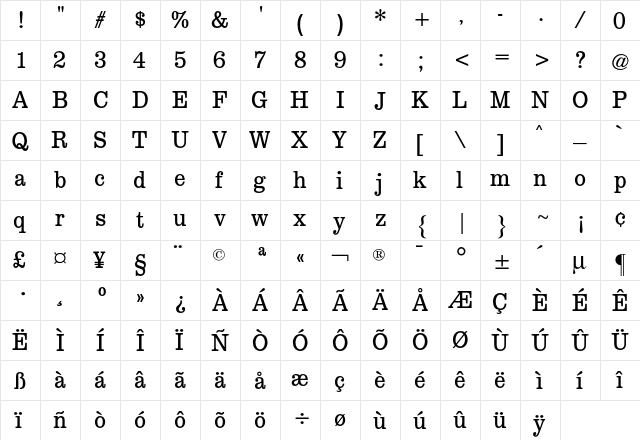
Clarendon CG Book Condensed Regular Font Preview
Design Context for Clarendon CG Book Condensed Typeface
Clarendon CG Book Condensed features prominent, blocky serifs that give it a confident, grounded presence — equally at home in editorial settings and bold branding work. The condensed width makes it efficient for tight spaces without sacrificing legibility.
Suited to magazines, political campaign materials, bold packaging, and any setting where authority matters.
Pro Tip: Use Clarendon CG Book Condensed for headlines and subheadings where its slab serifs can make an impression. It also holds up well in mid-size body copy thanks to its sturdy construction.